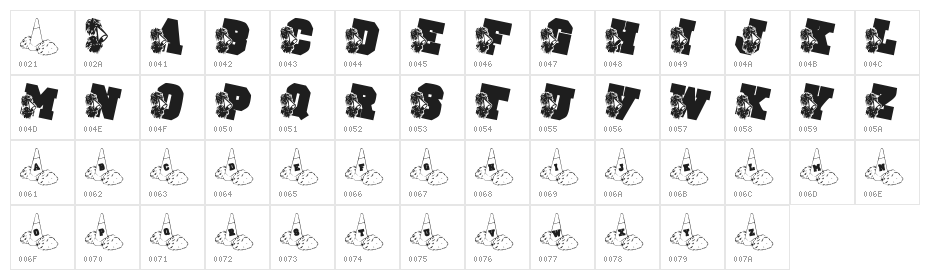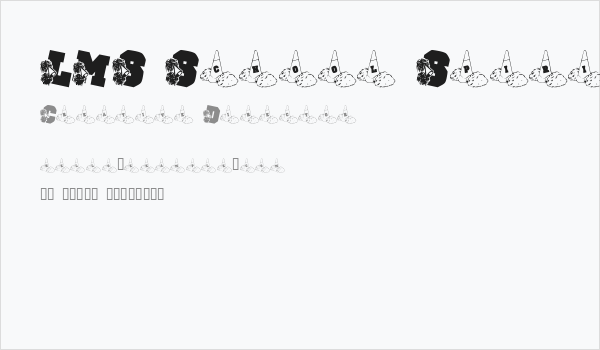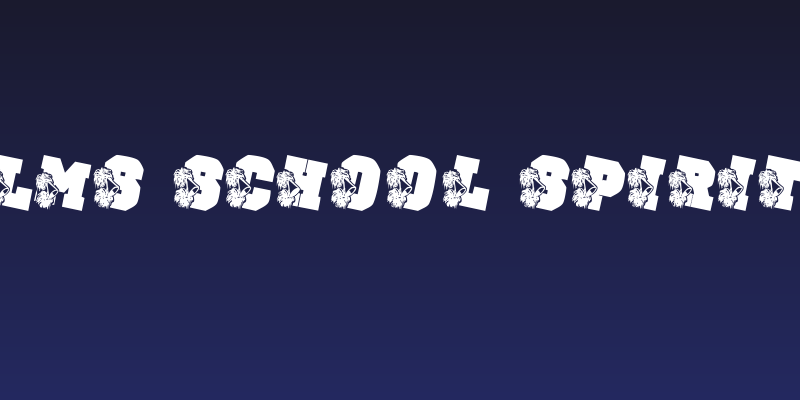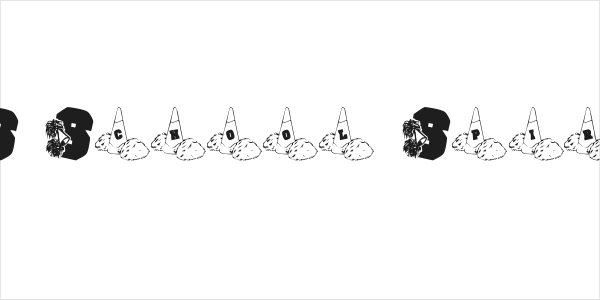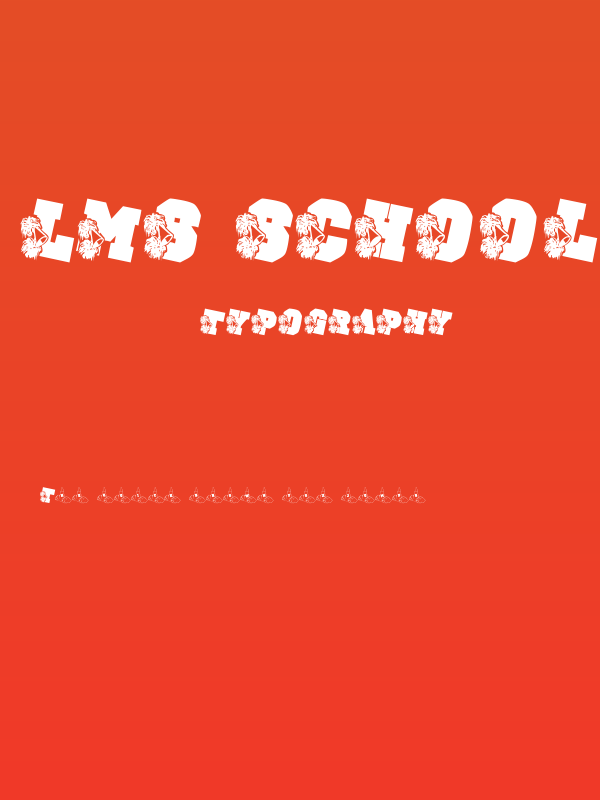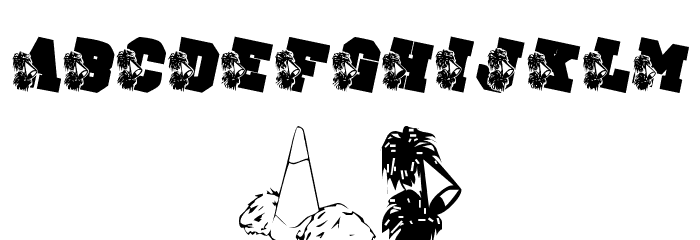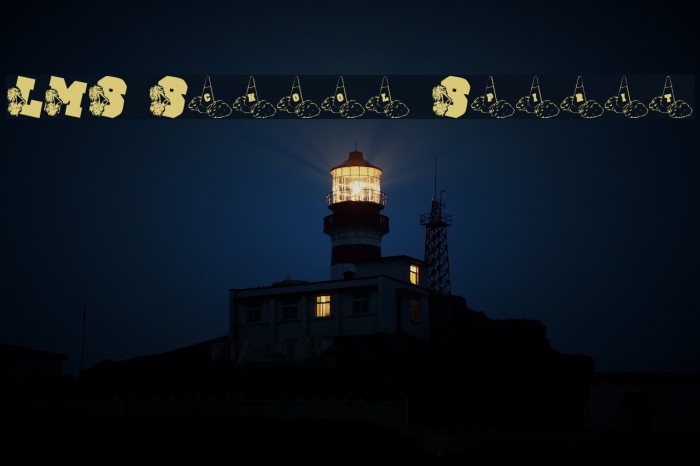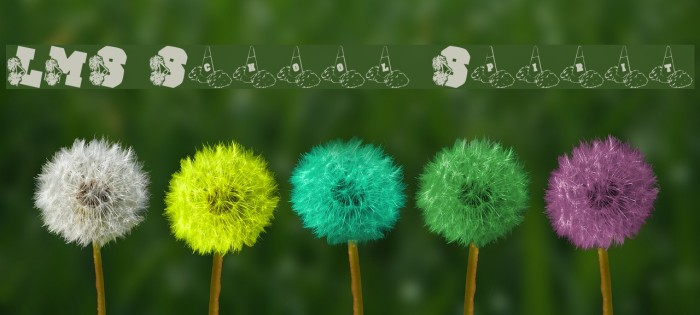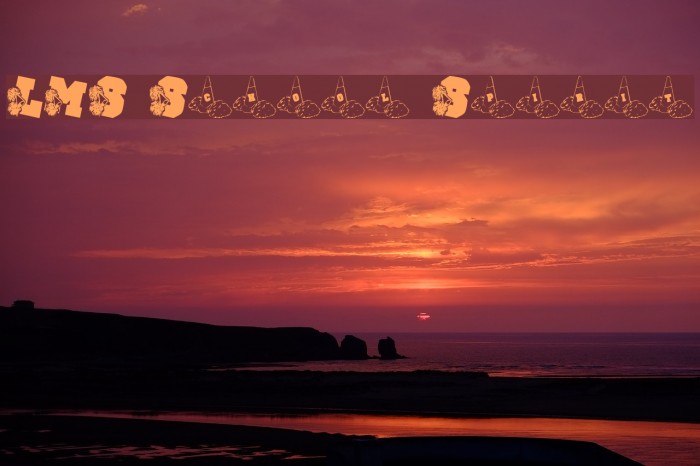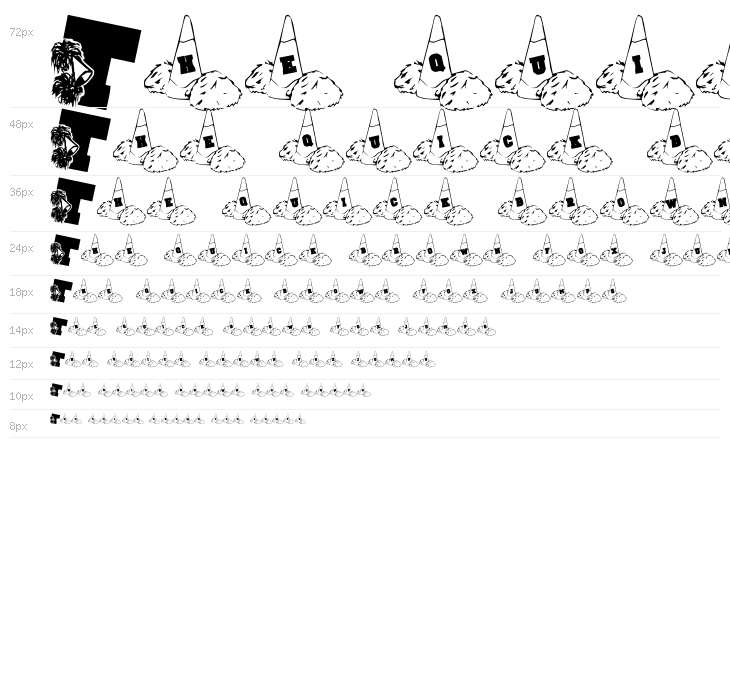
LMS School Spirit Font
LMS School Spirit Description
This font features a bold, decorative style with a playful and energetic theme. Each character is adorned with a cheerleader motif, incorporating pom-poms and dynamic poses, which adds a sense of movement and excitement. The uppercase letters are solid and impactful, making them ideal for attention-grabbing headlines or titles. The lowercase letters maintain the same playful theme, ensuring consistency throughout the text. The numbers and special characters are designed to match the overall aesthetic, making this font suitable for themed projects that require a fun and spirited look.
| Overall Style | Playful, Energetic, Decorative |
| Proposed Projects | Ideal for school spirit events, sports team branding, cheerleading competitions, and playful posters. |